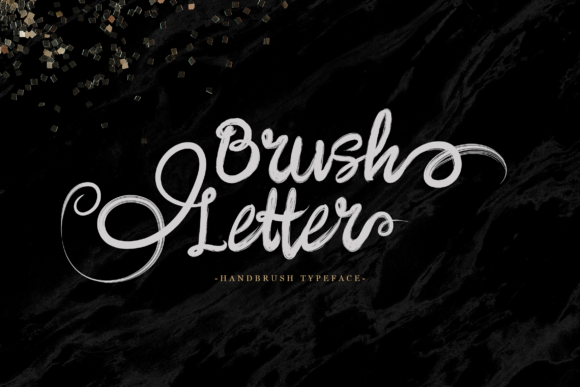
Behold, the Brush Letter Font, a calligraphic masterpiece that dances across your designs with enchanting grace. Enter a world of visual allure, where every letter exudes timeless elegance and delicate charm.
Born from the creative vision of Unicode Studio, Brush Letter Font belongs to the esteemed family of script fonts, renowned for their flowing strokes and expressive personalities. It's a font that effortlessly captures the essence of handwritten artistry, lending an intimate and personal touch to every project.
Immerse yourself in the boundless versatility of Brush Letter Font, a font that effortlessly adapts to diverse creative endeavors. From the ethereal beauty of wedding invitations to the heartfelt warmth of thank you cards, Brush Letter Font elevates your words with an air of sophistication.
Step into the world of graphic design and witness the transformative power of Brush Letter Font. Craft logos that command attention, business cards that leave a lasting impression, and greeting cards that evoke genuine emotions. Unleash your creativity and let Brush Letter Font guide you towards design brilliance.
With its PUA encoding, Brush Letter Font unlocks a world of possibilities. Access a treasure trove of glyphs and swashes with effortless ease, adding intricate details and flourishes that elevate your designs to new heights.
Brush Letter Font is more than just a font; it's an artistic journey that invites you to explore the depths of your creativity. Its varying baseline, smooth lines, and stunning alternates create a visual symphony that captivates and inspires.
Embrace the beauty of Brush Letter Font and embark on a creative odyssey that knows no bounds. Transform your digital creations into works of art, leaving a lasting impression on your audience.